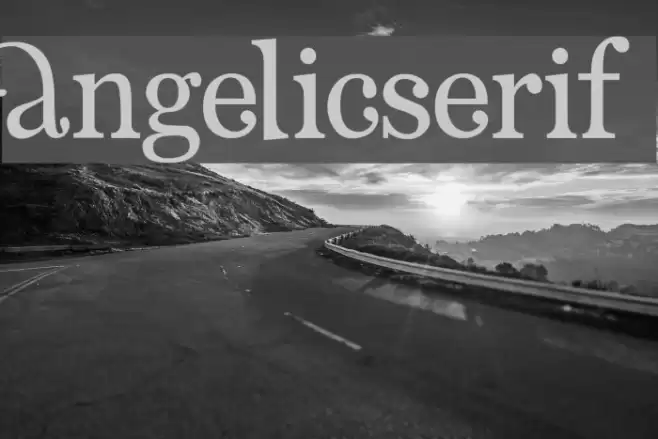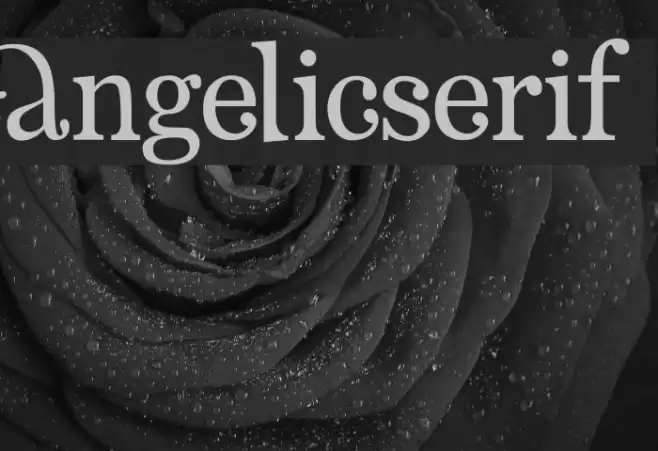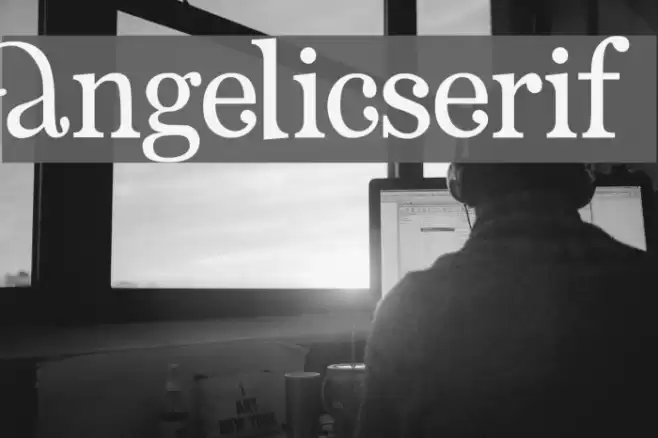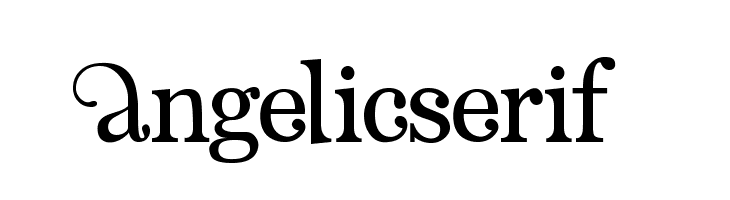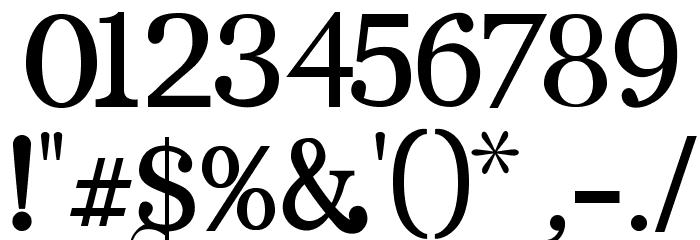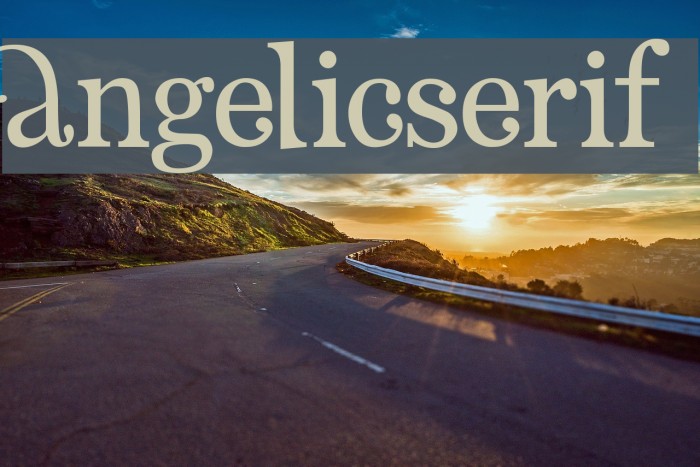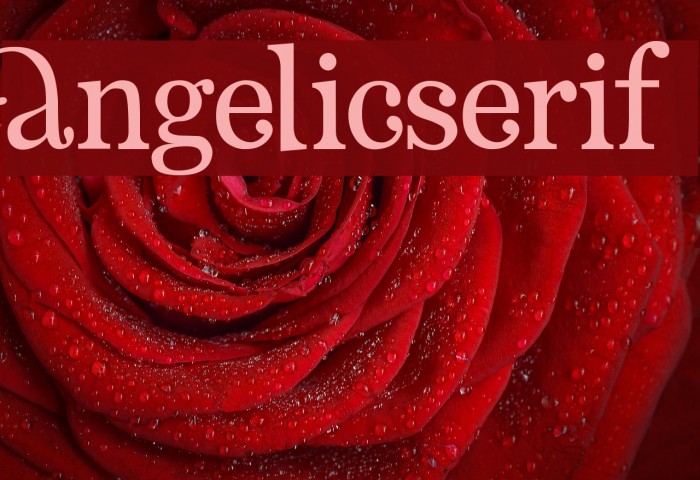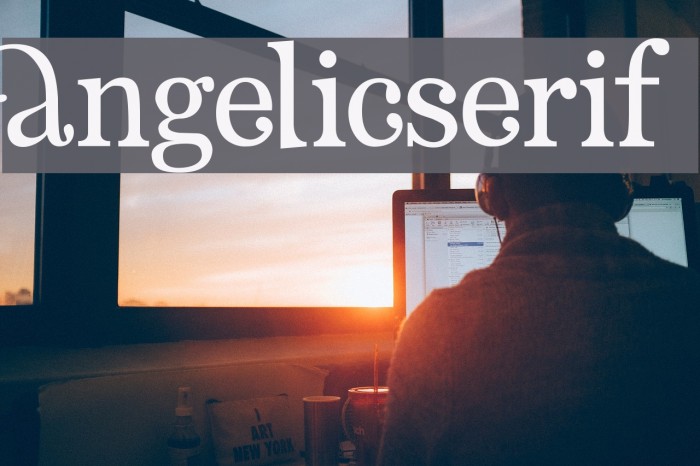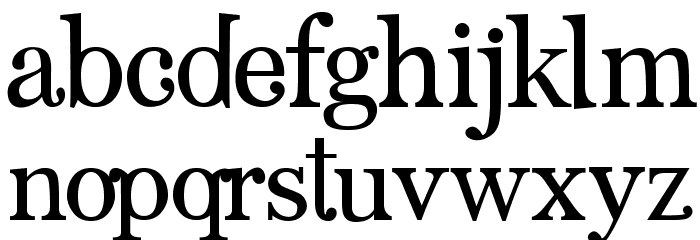
AngelicSerif Font
AngelicSerif Description
This font features a highly decorative and elegant serif style, characterized by its intricate and flowing curves. The uppercase letters exhibit a classic yet ornate design, with extended serifs and flourishes that add a touch of sophistication. The lowercase letters maintain a consistent style, with some characters having unique swashes that enhance their visual appeal. The numerals are bold and clear, ensuring readability while maintaining the font's decorative nature. Special characters are designed with the same attention to detail, making them suitable for various creative applications.
An elegant and decorative serif font with intricate curves and flourishes from Uncategorized fonts.
- Proposed Projects: Ideal for wedding invitations, luxury branding, book covers, and decorative headlines.